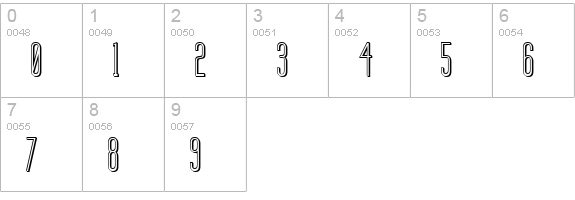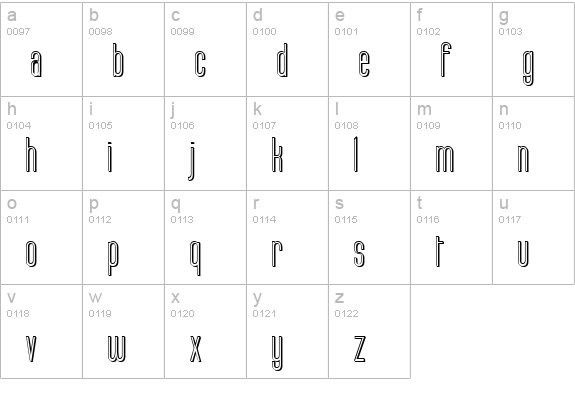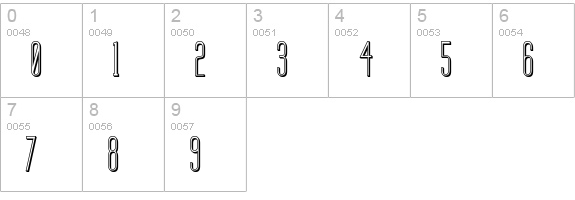
Labtop 3D Font Details
Introducing the Labtop 3D font - a modern and dynamic typeface that brings a cutting-edge aesthetic to your designs. With its sleek 3D effect, this font is perfect for adding depth and dimension to your projects, making text truly stand out. The Labtop 3D font combines futuristic elements with a hint of sophistication, making it versatile for various design applications. The best part? Labtop 3D font is completely free to download at FontsMarket.com. Yes, you read that right - this unique and eye-catching font can be yours at no cost. Whether you're working on a branding project, creating digital art, or designing posters, Labtop 3D font offers endless possibilities to elevate your work. Don't miss out on the opportunity to enhance your designs with this stylish and contemporary font that is just a click away. Download Labtop 3D font now and let your creativity soar!